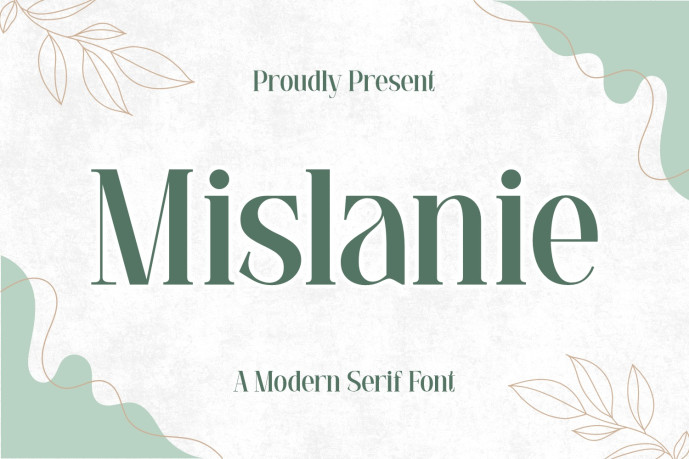
Mislanie Serif Font
Designer: Creative Fabrica Fonts
Mislanie Font is a refined modern serif font that blends minimalism with soft elegance. Its clean letterforms, subtle curves, and balanced proportions make it versatile for branding, wedding invitations, editorial layouts, packaging, and modern logos.
With a sophisticated yet approachable style, Mislani brings charm and clarity to both digital and print designs.